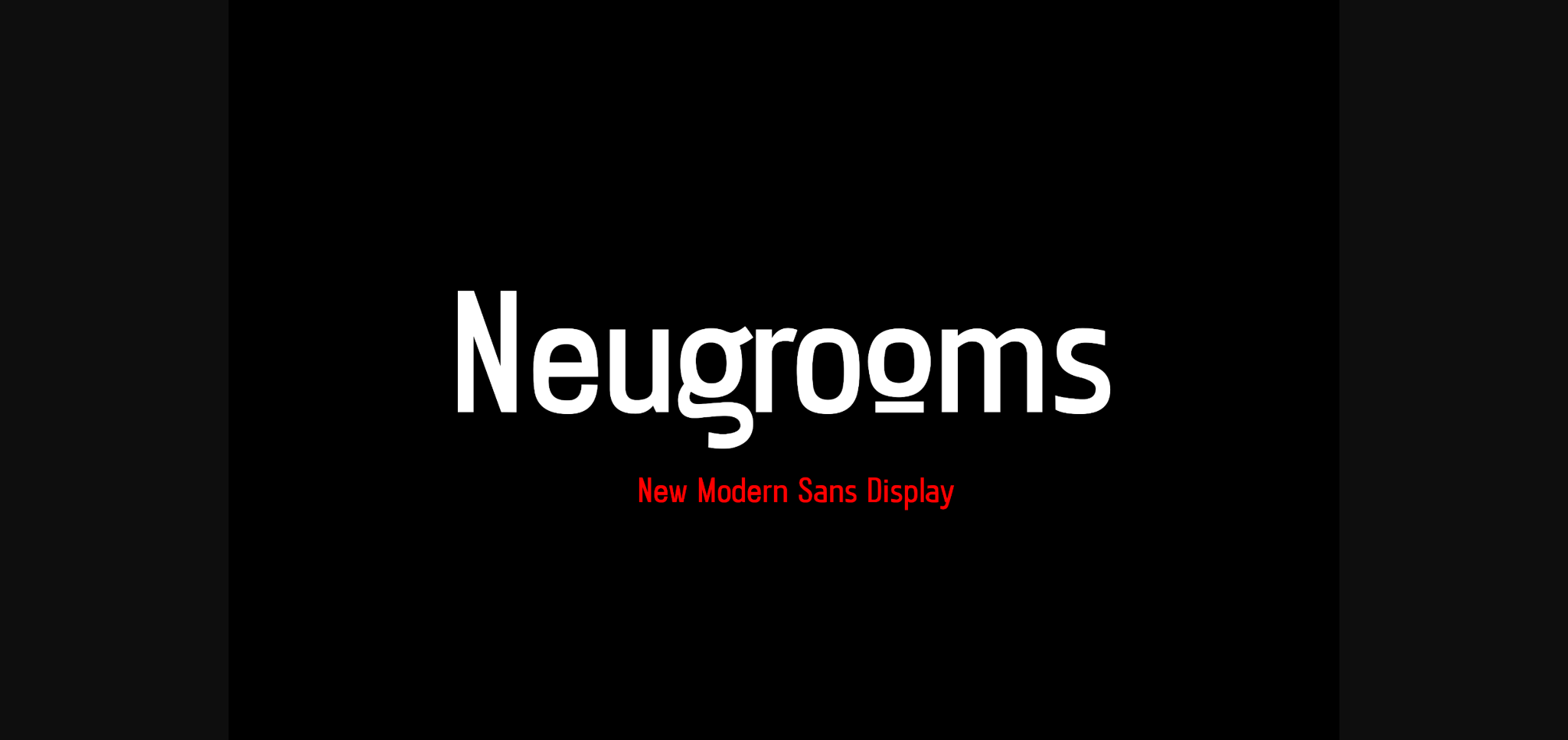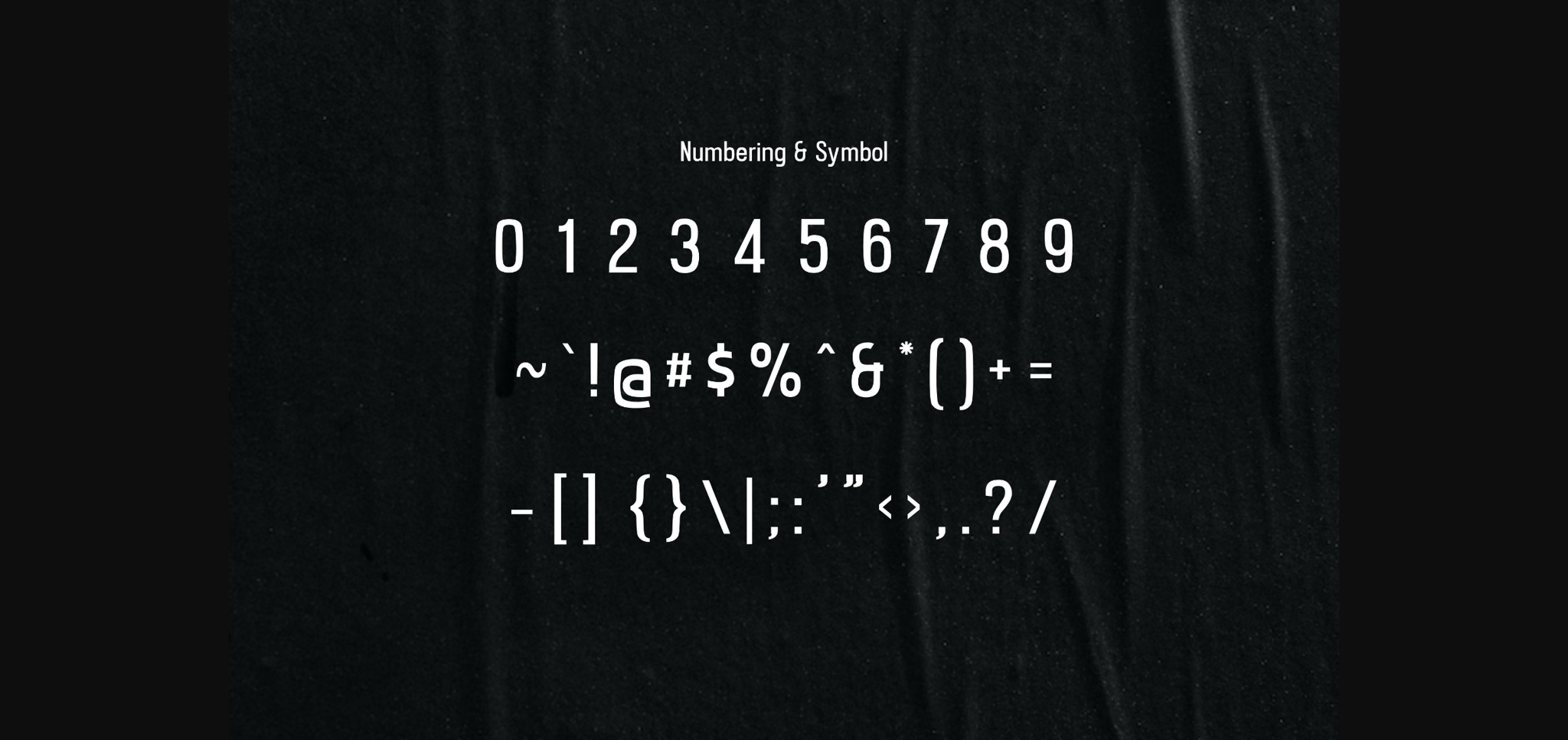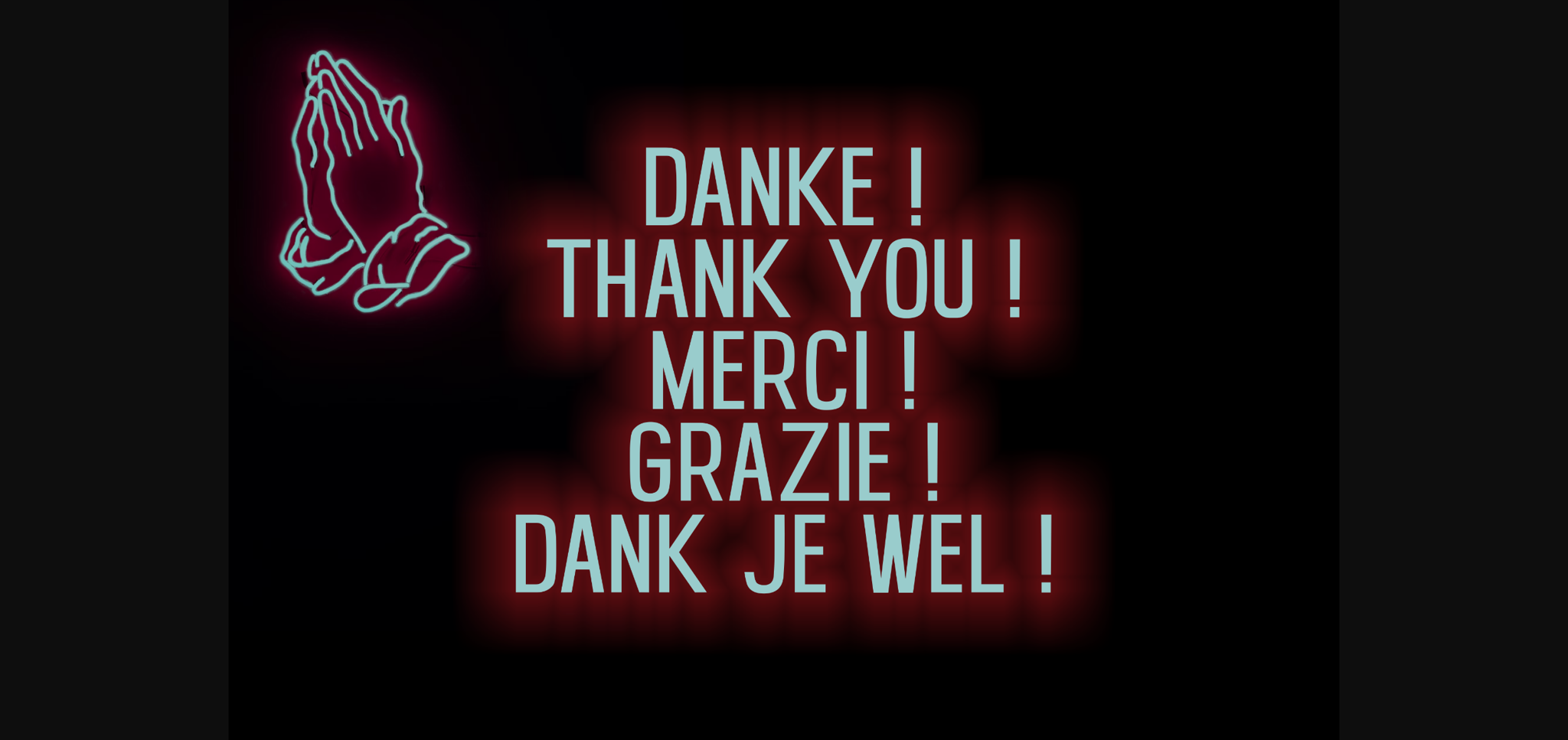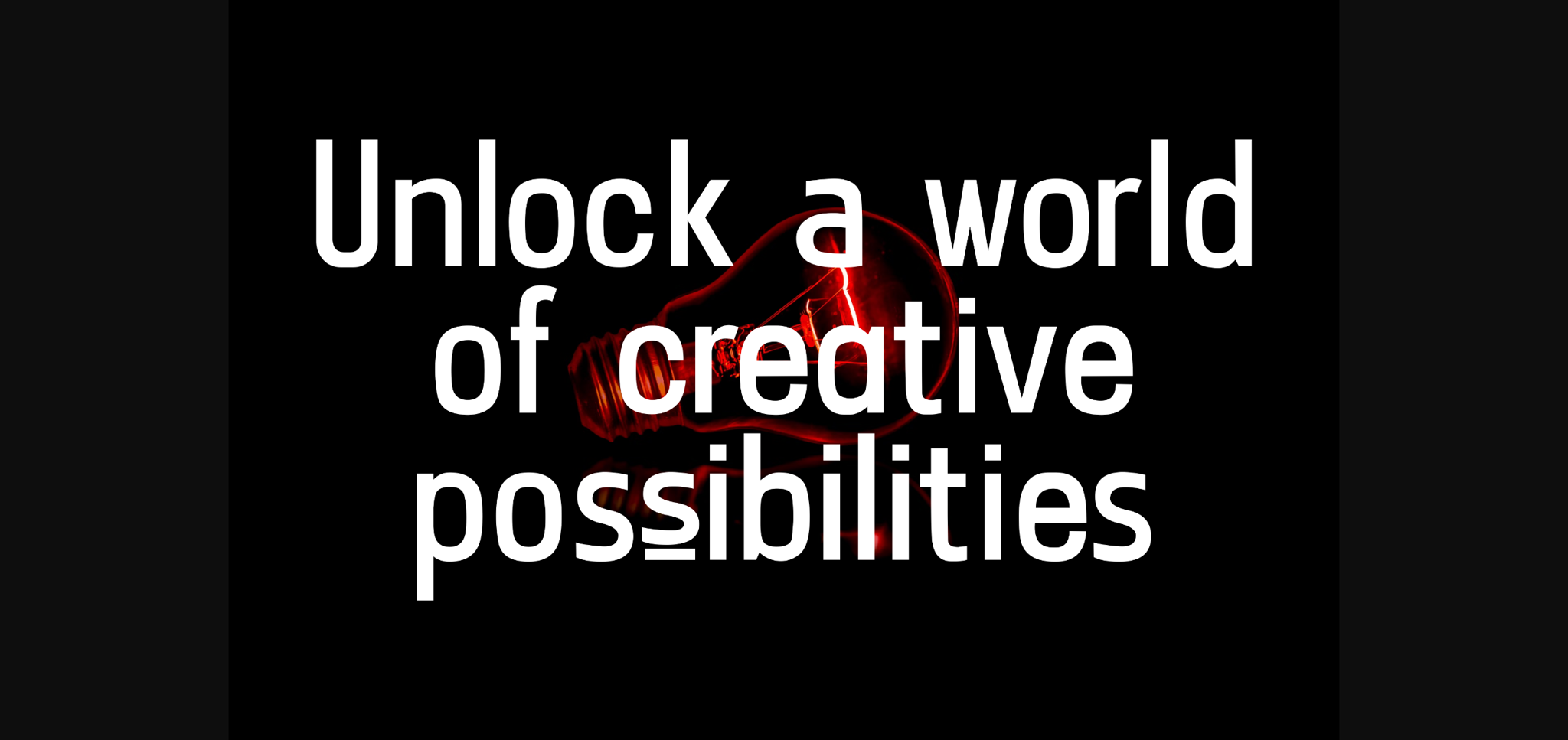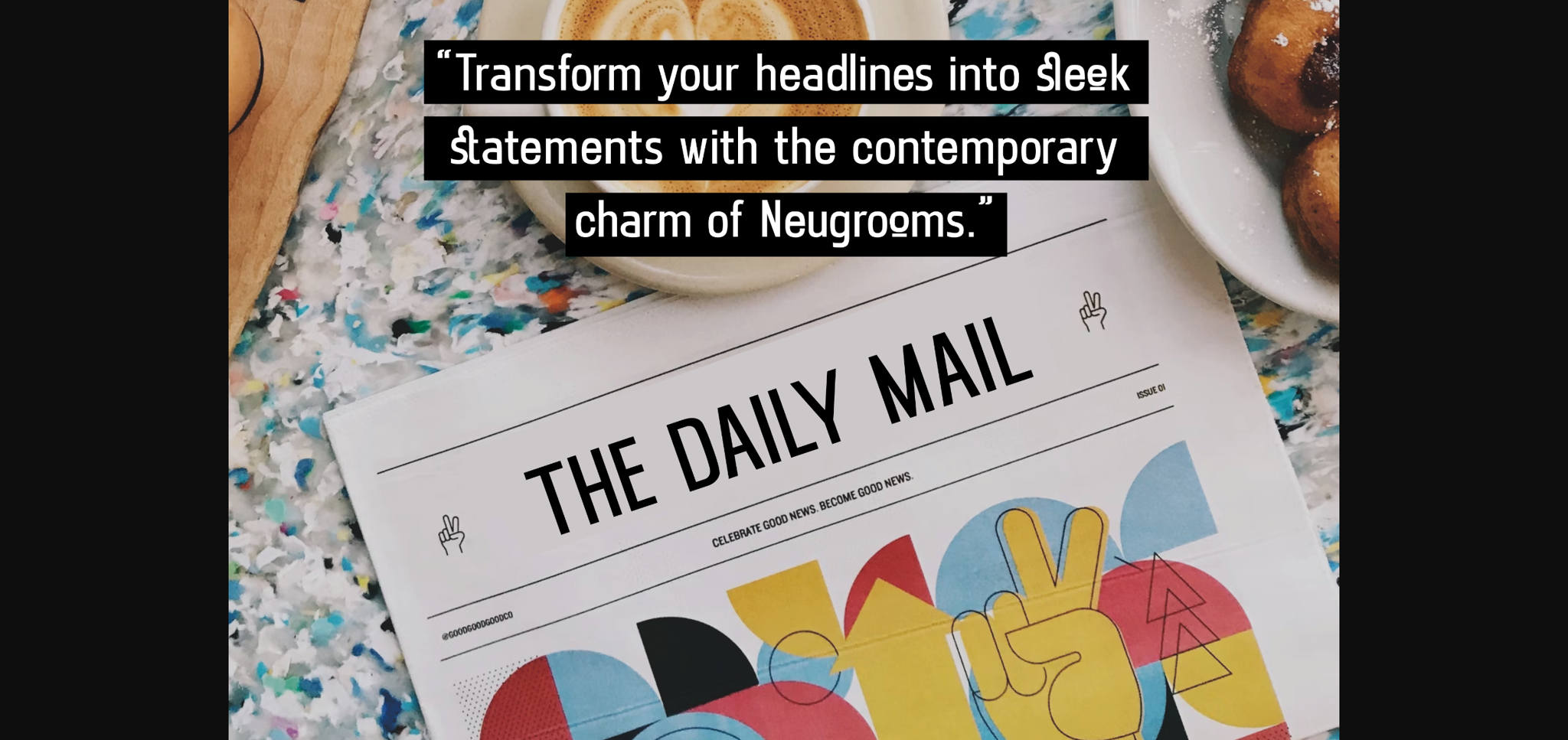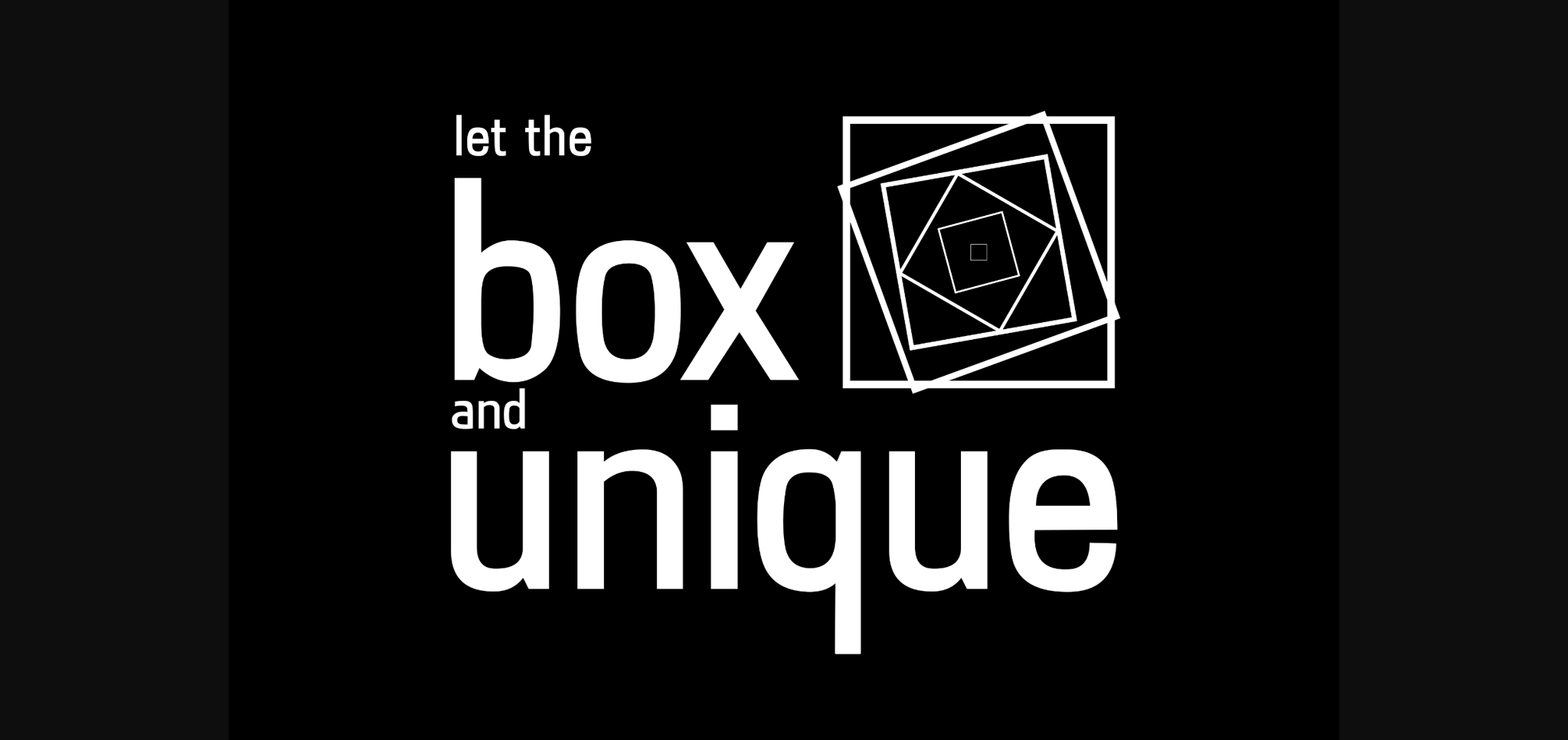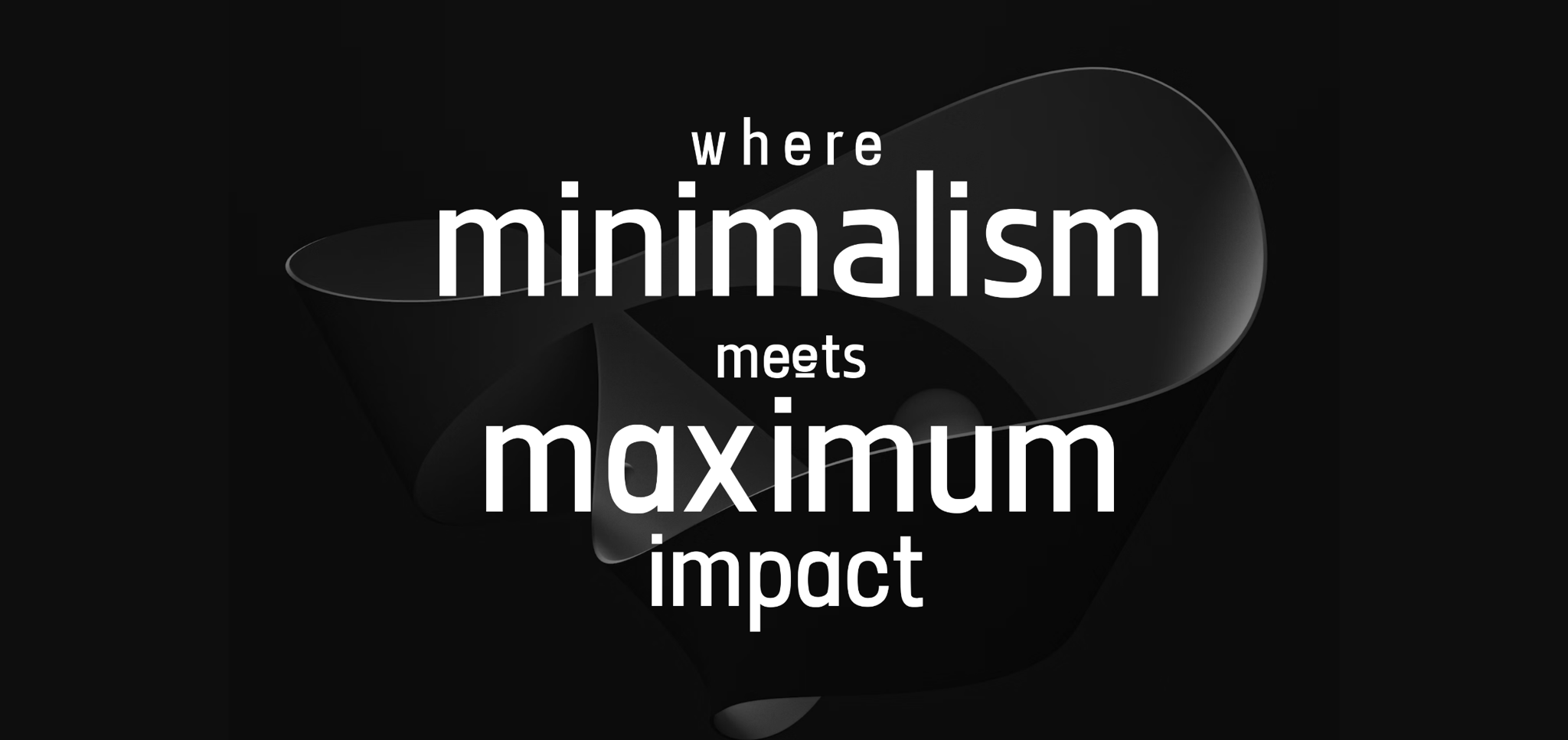
About Neugrooms Font
Introducing “Neugrooms,” a contemporary sans-serif display font that exudes a modern flair. Crafted for versatility, this font is ideal for a myriad of projects, including taglines, headlines, body text, logo design, and various other creative endeavors. Neugrooms combines sleek, clean lines with a touch of sophistication, making it the perfect choice for those seeking a stylish and impactful typography solution. Elevate your designs with the distinct and versatile aesthetic of Neugrooms, where modernity meets timeless elegance.
– Multilanguage
– Ligature
– Alternate